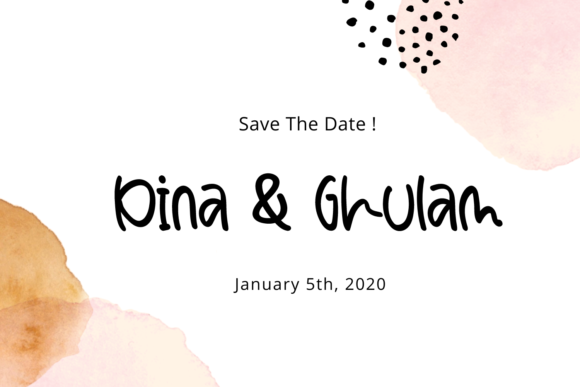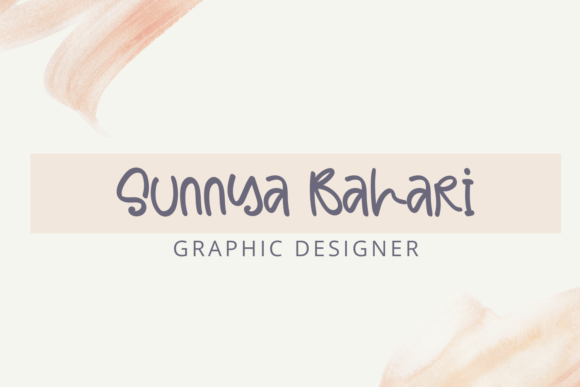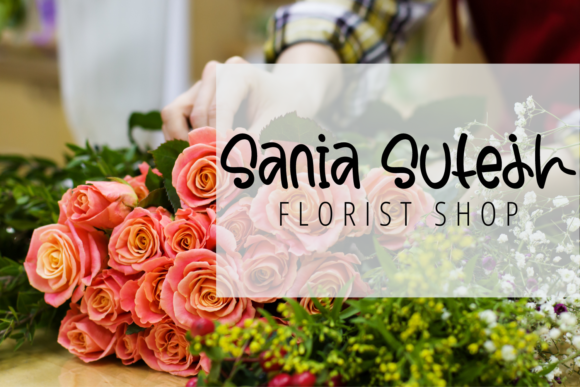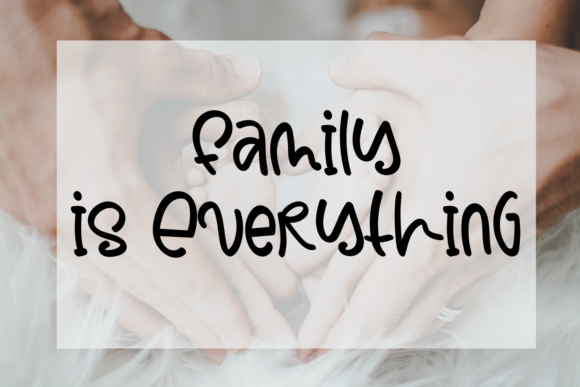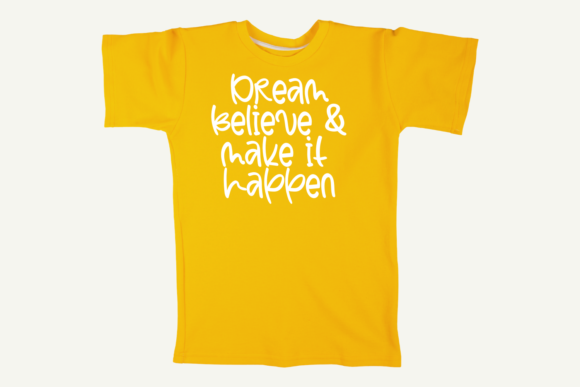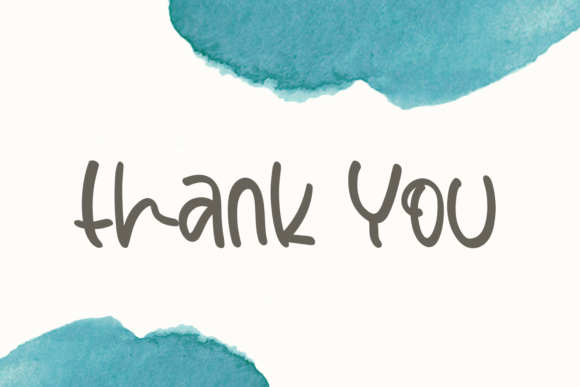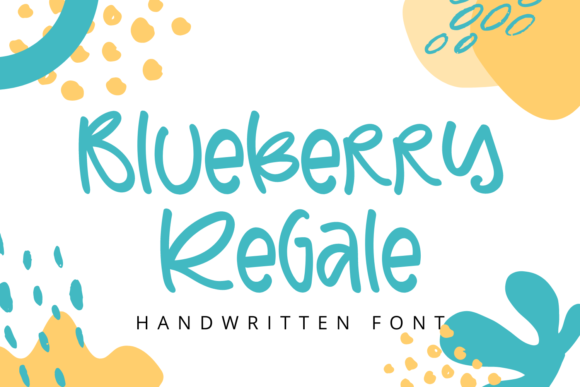
Introducing Blueberry Regale Font: Elevate Your Designs with a Unique Handwritten Style
Are you tired of using the same old fonts in your designs? Do you want to add a touch of personality and whimsy to your creations? Look no further than the Blueberry Regale font, a unique handwritten font that is sure to take your designs to the next level. In this article, we’ll explore the features and benefits of Blueberry Regale, and show you how to use it to create spectacular designs that will leave a lasting impression.
What is Blueberry Regale Font?
Blueberry Regale is a one-of-a-kind handwritten font that is perfect for designers and crafters who want to add a personal touch to their work. With its unique and elegant style, Blueberry Regale is ideal for a wide range of design projects, from branding and advertising to packaging and digital media. Whether you’re creating a logo, brochure, or social media graphic, Blueberry Regale is the perfect choice for adding a touch of sophistication and whimsy.
Key Features of Blueberry Regale Font
So what sets Blueberry Regale apart from other fonts? Here are just a few of its key features:
- Unique Handwritten Style: Blueberry Regale has a distinctive handwritten style that is both elegant and playful. Its unique letterforms and flowing lines make it perfect for creating designs that are both sophisticated and eye-catching.
- Highly Versatile: Blueberry Regale is a highly versatile font that can be used for a wide range of design projects. Whether you’re creating a logo, brochure, or social media graphic, Blueberry Regale is the perfect choice.
- Easy to Read: Despite its unique style, Blueberry Regale is highly legible and easy to read. This makes it perfect for designs where you need to communicate a message clearly and effectively.
- Scalable: Blueberry Regale is a scalable font that looks great at any size. Whether you’re creating a large billboard or a small social media graphic, Blueberry Regale will always look crisp and clear.
How to Use Blueberry Regale Font in Your Designs
Now that we’ve explored the features and benefits of Blueberry Regale, let’s take a look at how to use it in your designs. Here are a few tips to get you started:
- Pair it with Other Fonts: Blueberry Regale looks great when paired with other fonts. Try pairing it with a clean sans-serif font for a bold and eye-catching look.
- Use it for Headlines and Titles: Blueberry Regale is perfect for headlines and titles. Its unique style and flowing lines make it ideal for grabbing attention and adding visual interest to your designs.
- Experiment with Colors: Blueberry Regale looks great in a wide range of colors. Experiment with different colors and combinations to find the one that works best for your design.
- Use it for Branding and Advertising: Blueberry Regale is perfect for branding and advertising projects. Its unique style and elegant lines make it ideal for creating logos, brochures, and other marketing materials.
Tips and Tricks for Getting the Most Out of Blueberry Regale
Here are a few more tips and tricks for getting the most out of Blueberry Regale:
- Pay Attention to Kerning: As with any font, kerning is important when using Blueberry Regale. Make sure to adjust the kerning to ensure that your text looks balanced and visually appealing.
- Use it in Combination with Images: Blueberry Regale looks great when combined with images. Try using it to add text to a photo or illustration for a unique and eye-catching effect.
- Experiment with Different Sizes: Blueberry Regale looks great at a wide range of sizes. Experiment with different sizes to find the one that works best for your design.
| Author | Al Ghul |
In conclusion, Blueberry Regale is a unique and versatile handwritten font that is perfect for designers and crafters who want to add a personal touch to their work. With its elegant style, flowing lines, and highly legible letterforms, Blueberry Regale is ideal for a wide range of design projects. Whether you’re creating a logo, brochure, or social media graphic, Blueberry Regale is the perfect choice for adding a touch of sophistication and whimsy. So why wait? Download Blueberry Regale today and start creating spectacular designs that will leave a lasting impression!